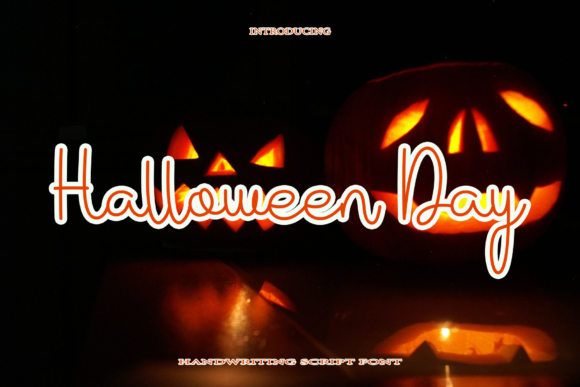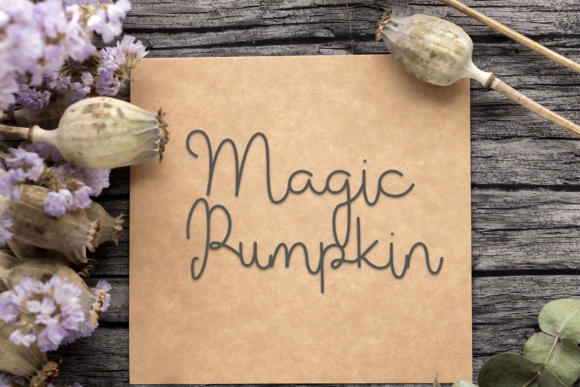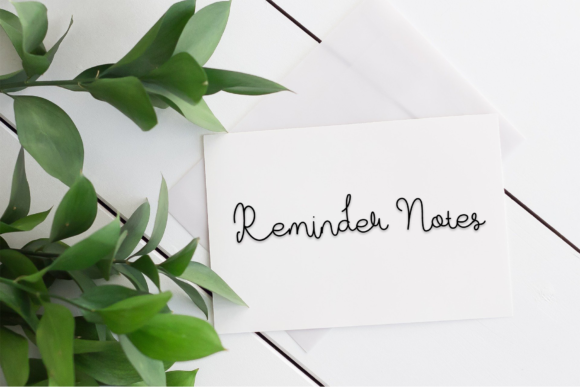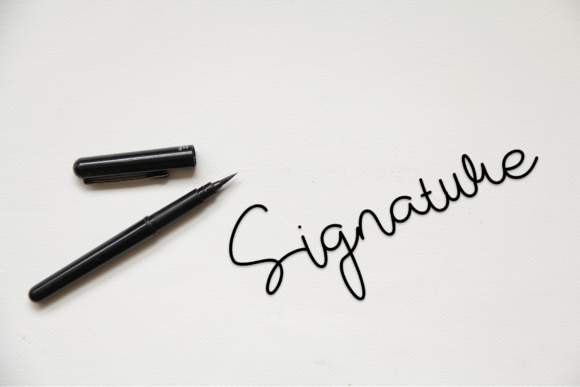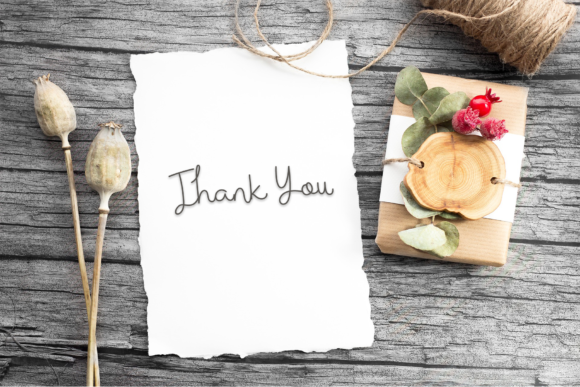
Halloween Day Font
About Halloween Day Font
“Halloween Day” is a thin lettered and delicate script font that adds a touch of elegance and charm to various design projects. With its graceful and intricate letterforms, it creates a beautiful and customized look that is perfect for a range of occasions and applications.
When it comes to wedding invitations, “Halloween Day” can bring a romantic and sophisticated vibe. The thin lettering adds a sense of delicacy and refinement, while the elegant curves and flourishes give it a touch of whimsy. Whether you’re designing invitations for a traditional wedding or a more modern celebration, this font can enhance the overall aesthetic and create a memorable impression.
For thank you cards and greeting cards, “Halloween Day” adds a personalized and heartfelt touch. The delicate script conveys a sense of warmth and sincerity, making it ideal for expressing gratitude or sending well wishes. Its versatility allows it to work well with various themes, whether it’s a birthday card, a holiday greeting, or a note of appreciation.
In terms of branding, “Halloween Day” can lend a unique and customized touch to logos and business cards. Its thin lettering and delicate strokes create a refined and sophisticated look, making your brand stand out with its distinctive typography. It can be particularly suitable for businesses or projects that aim to convey elegance, femininity, or creativity.
Additionally, “Halloween Day” is well-suited for quotes and typographic designs. Its thin letterforms and decorative elements make each word a visual delight. Whether you’re creating inspirational quotes, social media graphics, or typographic posters, this font can add a touch of charm and elegance, capturing attention and making your message visually appealing.
Overall, “Halloween Day” is a thin lettered and delicate script font that brings a customized touch to various design projects. Its versatility allows it to shine in wedding invitations, thank you cards, quotes, greeting cards, logos, business cards, and more. With its elegant and refined style, it adds a touch of sophistication and charm, making your designs stand out with a personalized and unique look.